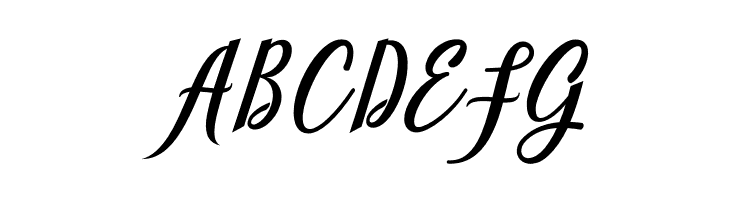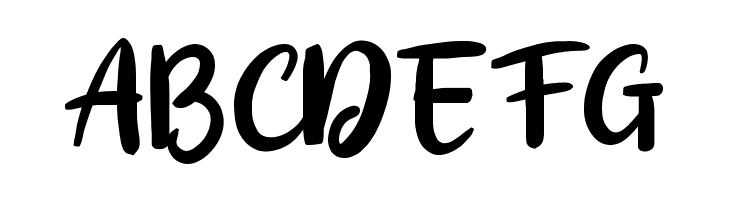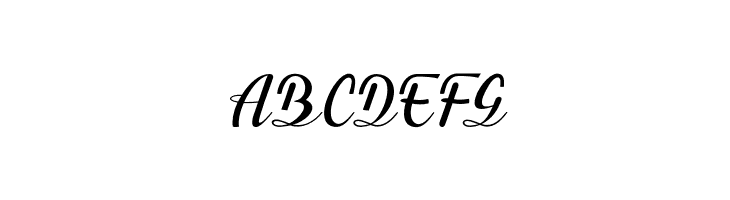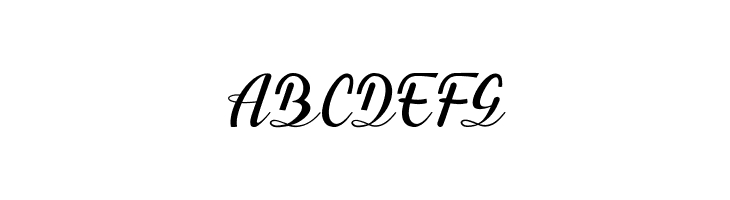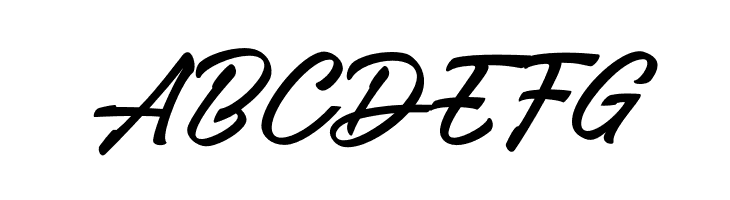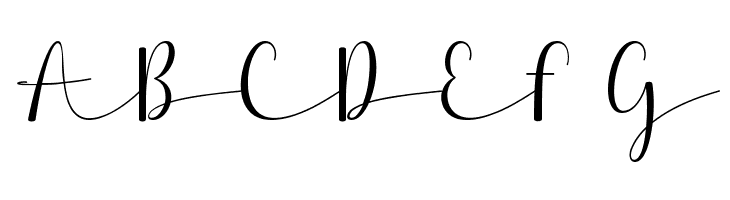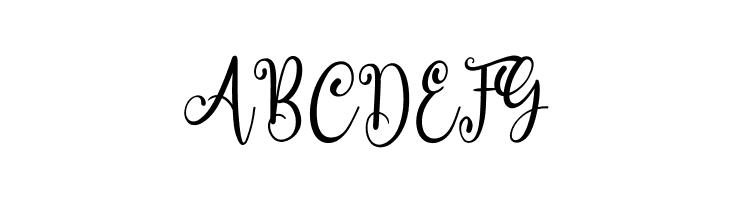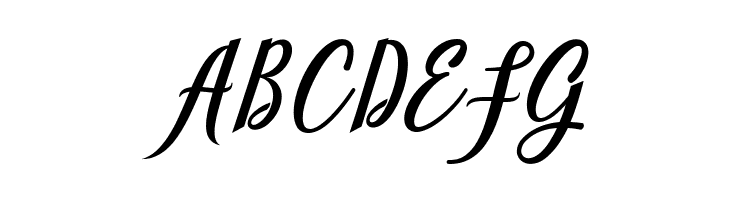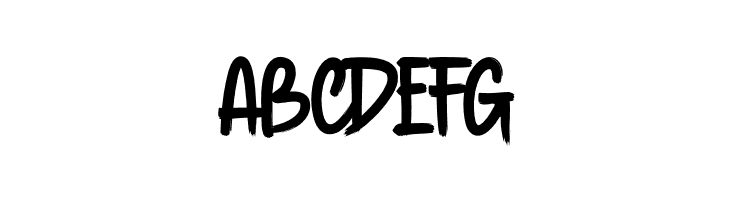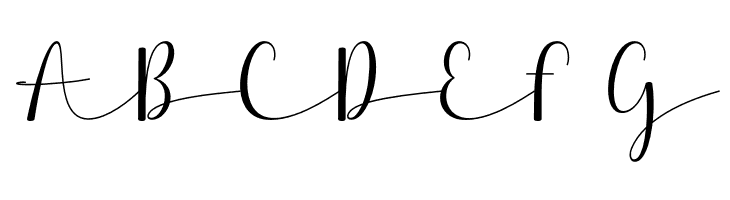
• Adelica Brush
A bold, brush-style font with a lively and energetic feel.
• Adelicia
An elegant, flowing script font with graceful cursive strokes.
• Adelicia
A graceful and flowing script font with elegant, cursive letterforms.
• adelina
A graceful script font with elegant flourishes and a handwritten feel.
• Adelina Camarie
A bold, cursive font with fluid, interconnected letters and a dynamic style.
• Adeline
A graceful cursive script with elegant loops and swashes.
• Adeline
A modern, elegant script font with flowing, cursive letters and graceful flourishes.
• Adeline azzam studio
An elegant, cursive font with graceful flourishes and medium contrast.
• Adeline-azzamstudio
A graceful script font with elegant swashes and flowing lines.
• Adelines
A bold, hand-drawn font with a dynamic and energetic style.